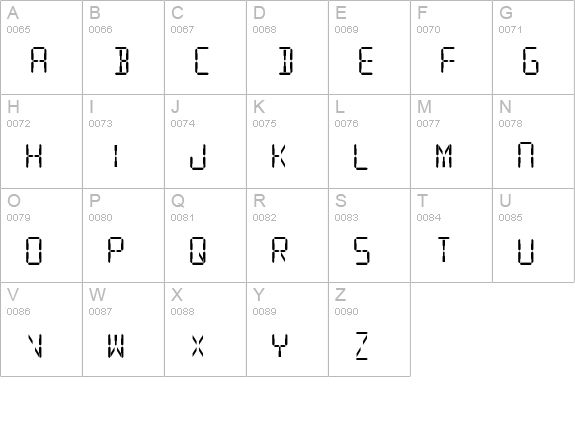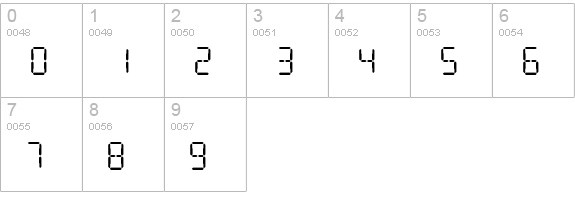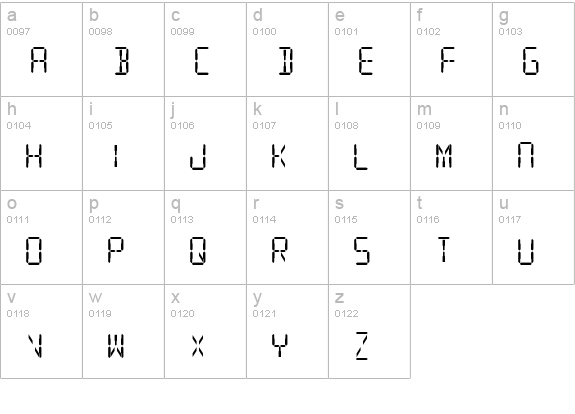
Digital Readout Upright font is a modern and sleek typeface that will give your designs a futuristic and sophisticated look. With its clean lines and sharp angles, this font is perfect for projects that require a high-tech or digital aesthetic. The upright style adds a sense of stability and precision to your text, making it ideal for conveying information in a clear and concise manner. Best of all, Digital Readout Upright font is available for free download at FontsMarket.com. This means you can easily access this stylish font without any cost, making it a valuable addition to your font collection. Whether you're designing a website, creating a poster, or working on a branding project, Digital Readout Upright font is sure to make a bold statement and elevate your design to the next level. Download it today and see the impact it can have on your projects!